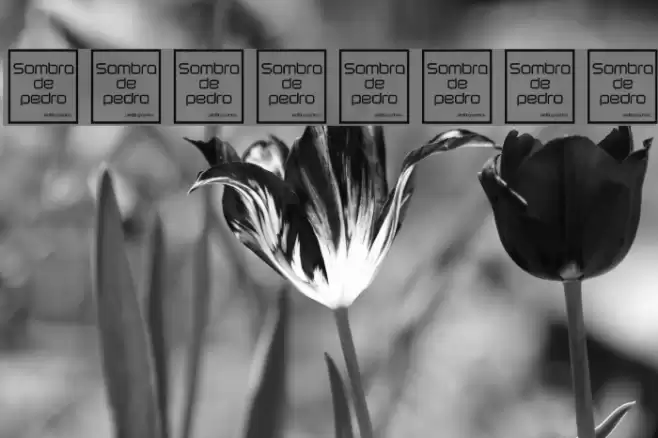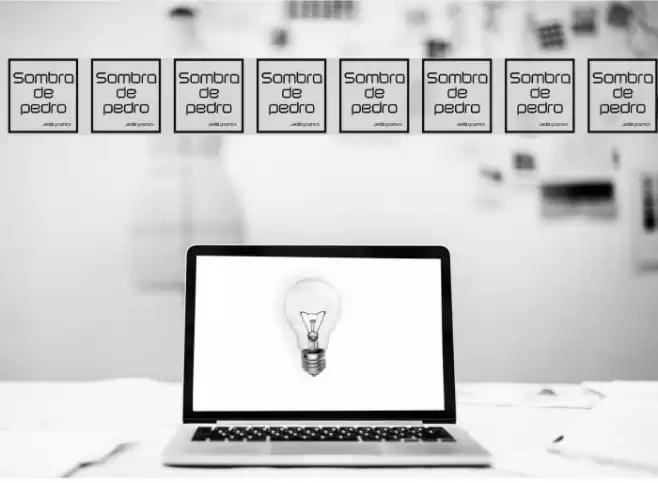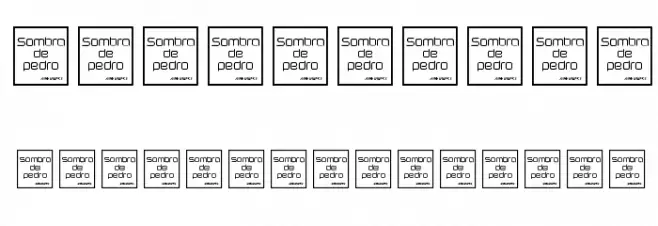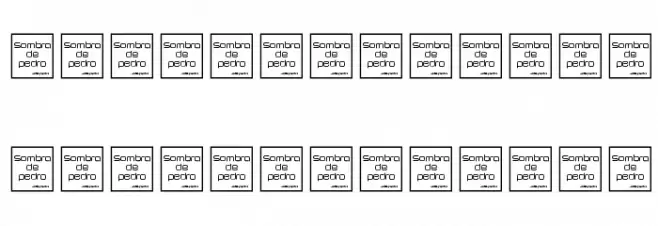
Sombras-Jed- Font
Sombras-Jed- Description
This font features a bold, geometric style with clean lines and a modern aesthetic. The characters are evenly spaced, providing a balanced and harmonious appearance. The uppercase letters are slightly taller than the lowercase, adding a subtle distinction between the two. The font's design is straightforward, making it highly legible and suitable for various applications. Its simplicity is complemented by a touch of elegance, making it versatile for both formal and casual uses. The consistent stroke width throughout the characters ensures a uniform look, enhancing readability.
A bold, geometric font with clean lines and a modern aesthetic from Crazy fonts.
- Proposed Projects: Ideal for branding, headlines, posters, and digital media where a modern and clean look is desired.